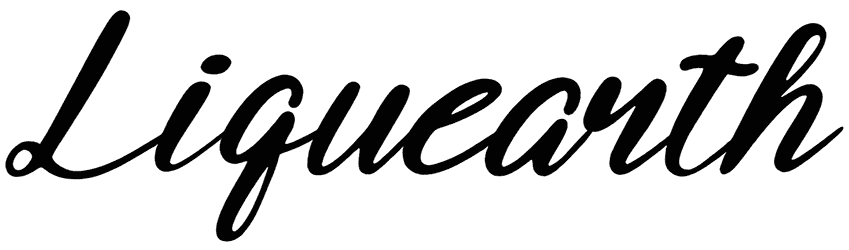
Liquearth Font
It’s time to introduce a thick, slanted, and cursive handwritten font, Liquearth, which is designed uniquely to improve your creative projects and make them stand out from the rest that stay in mind and are never forgotten. This calligraphy font is not easy to read, especially in long texts. It can be used for invitation cards, branding materials, apparel printing, music covers, posters, etc. Cheers!